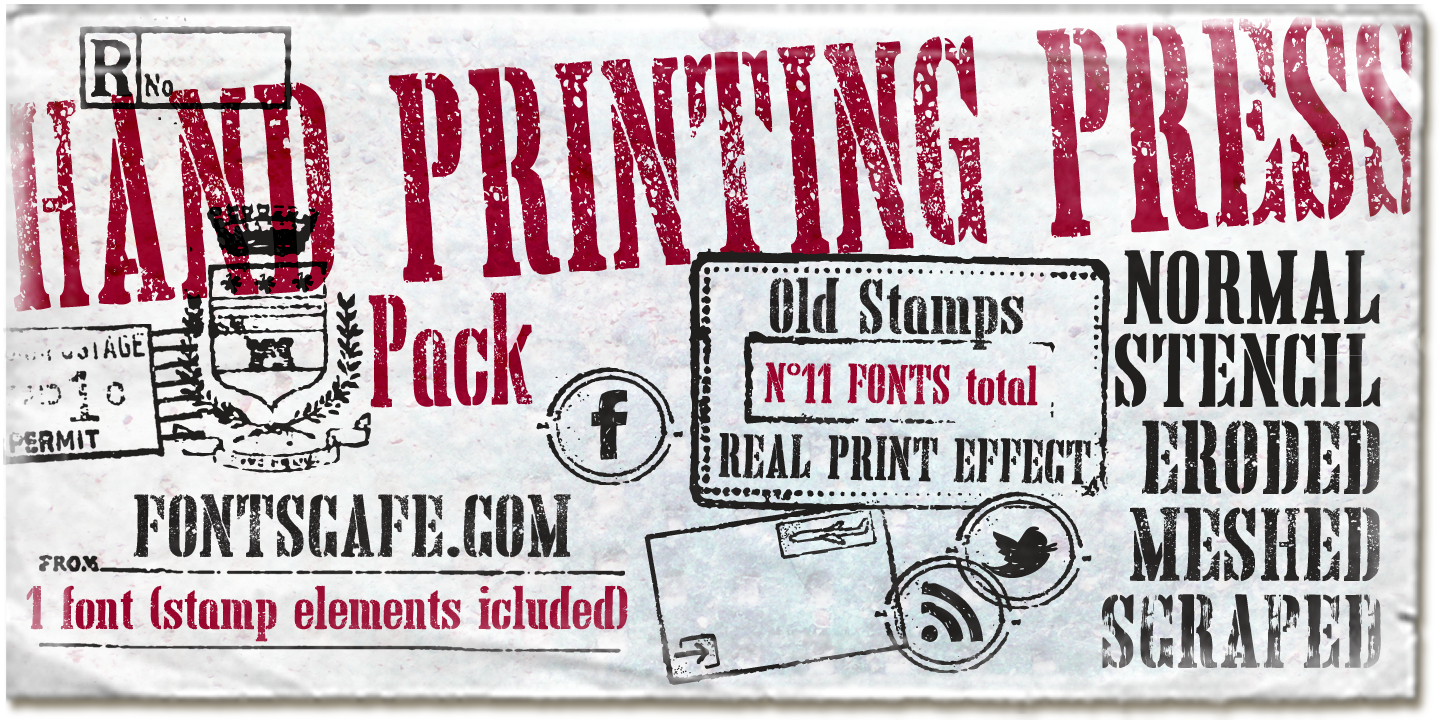
Hand Printing Press Font is perfect for traditional letterpress studios, heritage printing museums, artisan stationery designers, vintage book publishers, craft printing workshops, authentic typography schools, and historic print restoration services. This authentic typeface embodies traditional printing craftsmanship and mechanical press heritage, bringing handcrafted printing authenticity and historical typography to any design project celebrating traditional printing arts and letterpress culture.
What makes Hand Printing Press Font exciting is its masterful recreation of traditional letterpress printing techniques and mechanical press craftsmanship that perfectly captures the essence of historical printing methods and artisan typography skills. The font features hand-pressed letterforms with ink impression details and mechanical character variations that evoke both the physical process of letterpress printing and the artisanal skill of traditional typesetting. Its authentic character appeals to printing enthusiasts while maintaining excellent readability for both historical documentation and contemporary letterpress applications.
The Hand Printing Press Font family includes regular and bold weights with complementary impressed variations and printing ornamental elements. The character set features letterpress ligatures, printing symbols, mechanical alternates, and traditional decorative accents that enhance the font's authentic appeal. Extended character support includes historical printing marks and typesetting symbols for accurate representation in heritage printing and letterpress applications.
Whether you're designing traditional printing brands, creating letterpress workshop materials, or developing printing heritage content, Hand Printing Press Font Free Download provides exceptional authenticity and versatility. This distinguished typeface transforms ordinary text into meaningful printing experiences that celebrate traditional craftsmanship while establishing respected brand recognition in competitive artisan printing and heritage typography marketplaces.